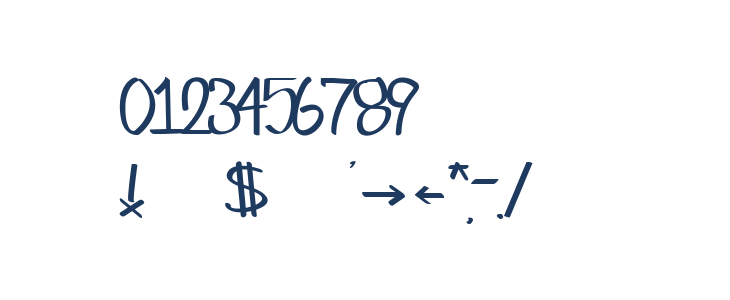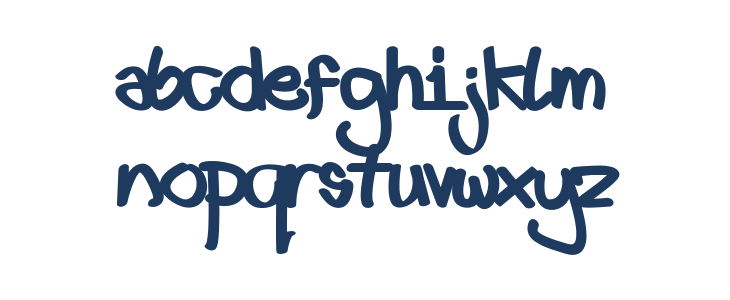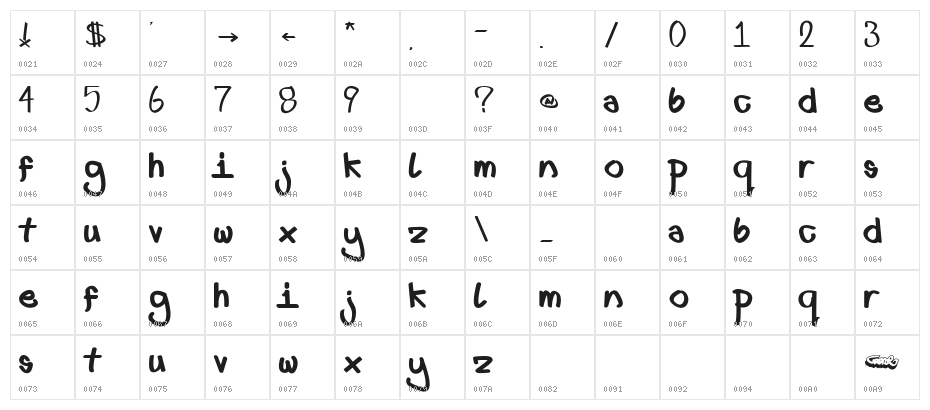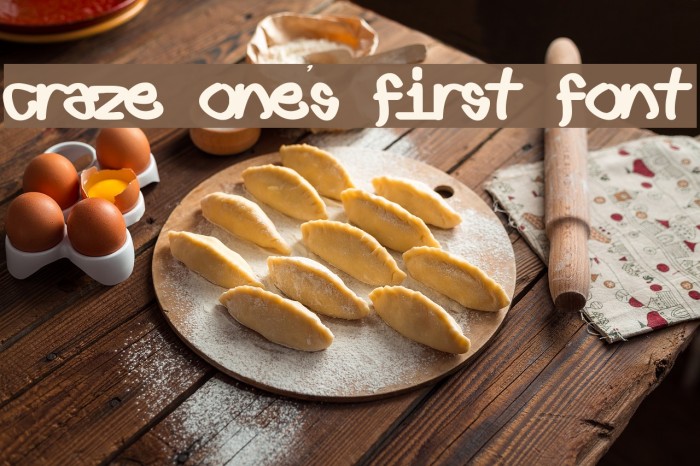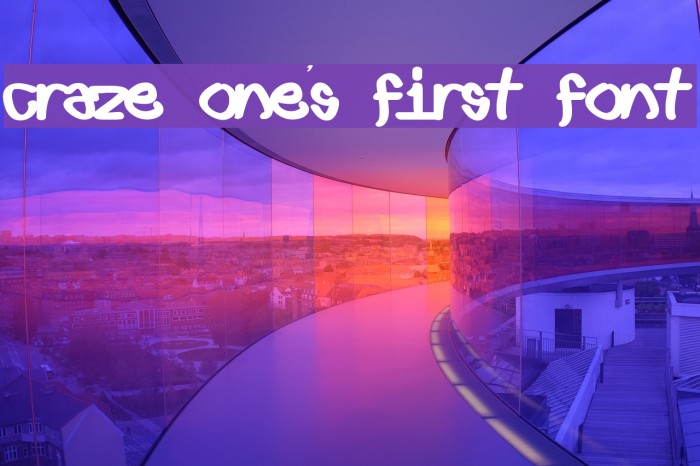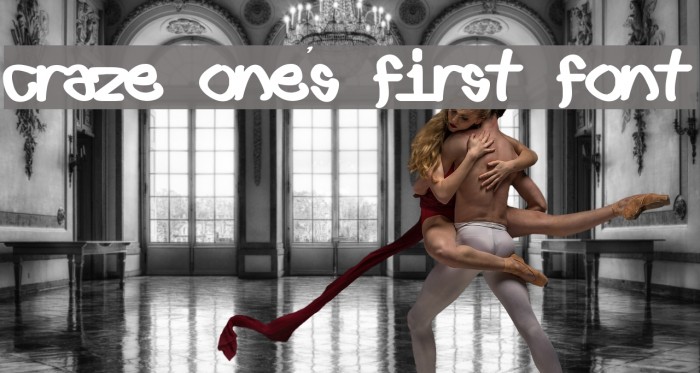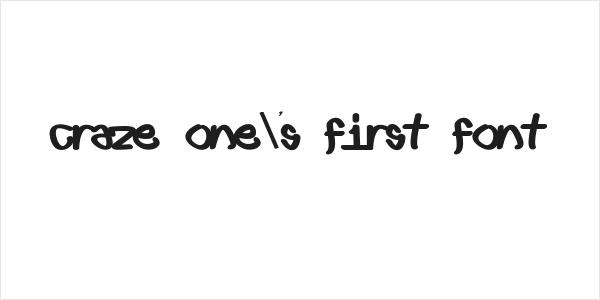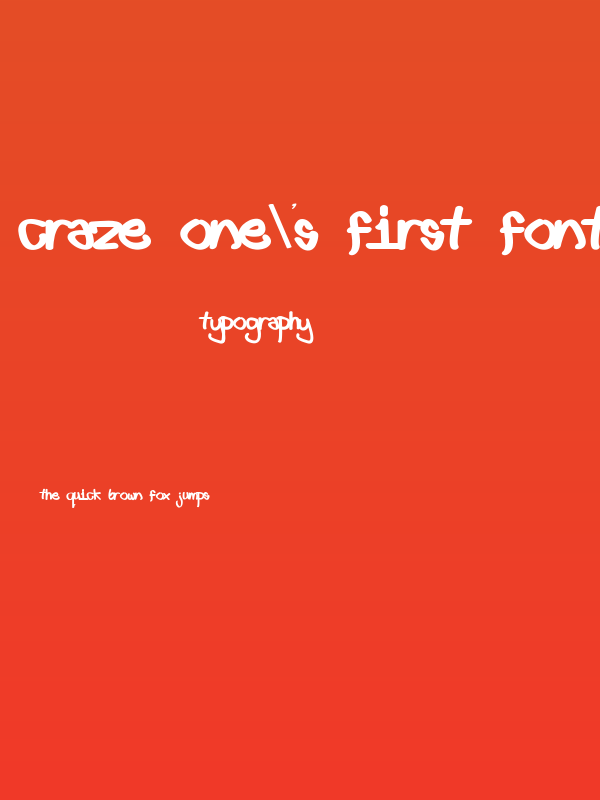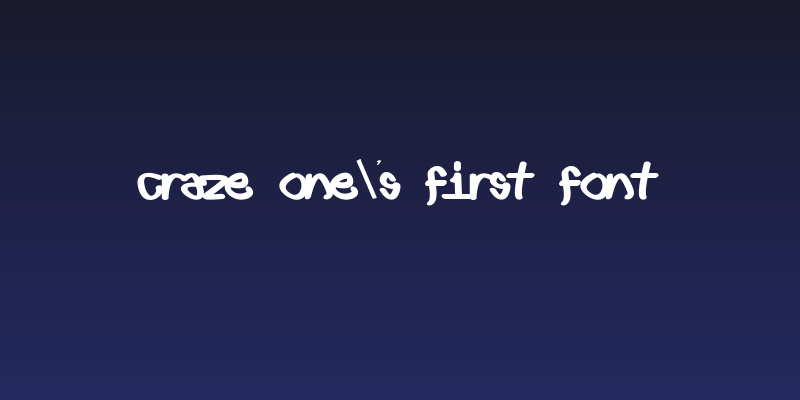
Craze One's first font Font
Craze One's first font Description
This playful and energetic font features bold, rounded characters with a hand-drawn aesthetic. The letters are slightly irregular, giving a whimsical and informal feel. The uppercase and lowercase letters maintain a consistent style, with exaggerated loops and curves that add to the font's charm. Numbers and special characters are equally expressive, with unique shapes that stand out. This font is perfect for projects that require a fun and lively touch, such as children's books, posters, or creative branding. Its bold strokes and distinctive style make it eye-catching and memorable.
| Proposed Projects | Ideal for children's books, playful branding, posters, and creative designs. |